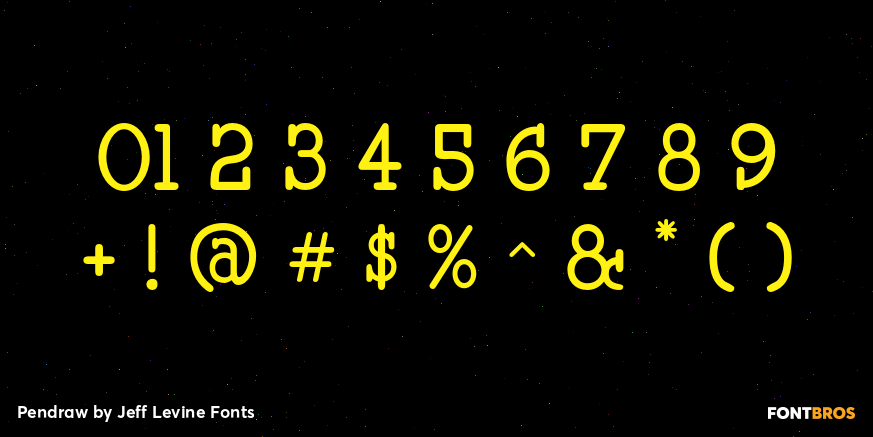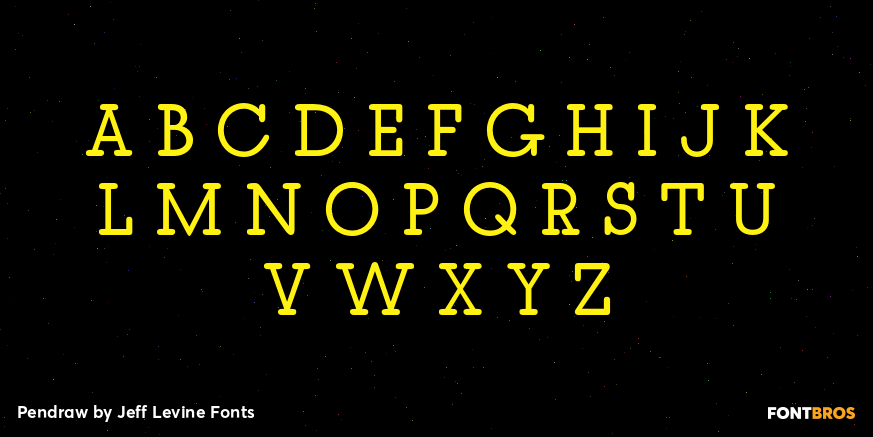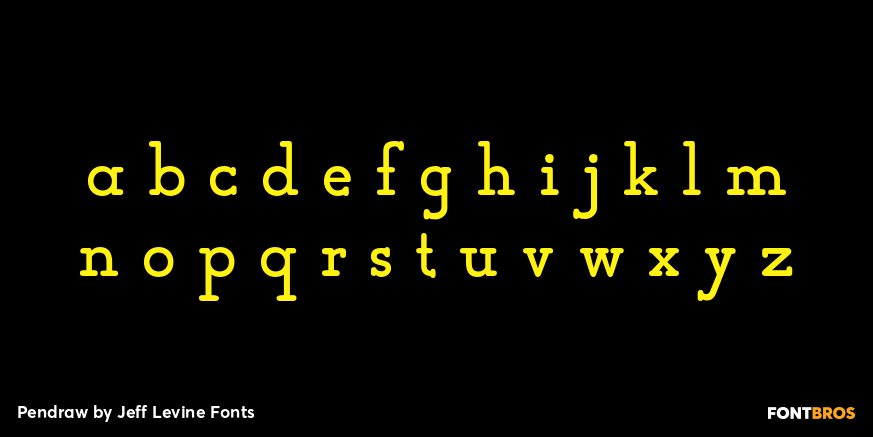
Pendraw
The look and feel of pen lettering is captured in this nostalgically-styled font from Jeff Levine.
Add a touch of the 1920's or 1930's to your projects with Pendraw JNL to evoke the look of old-time show cards and signs.
Pendraw JNL Regular by Jeff Levine Fonts